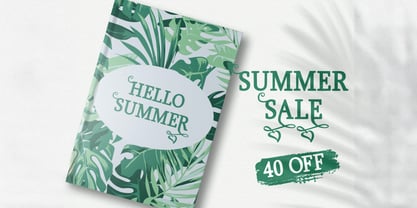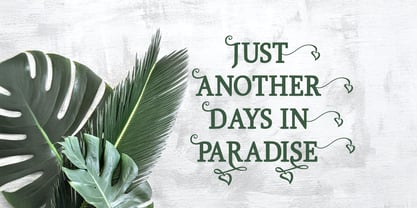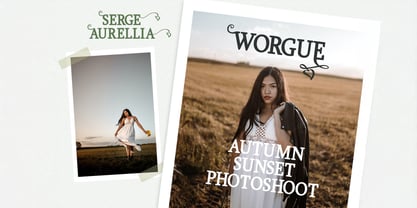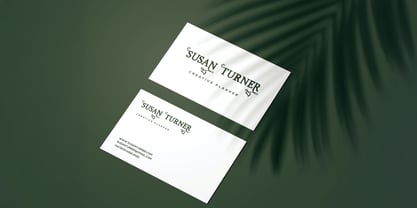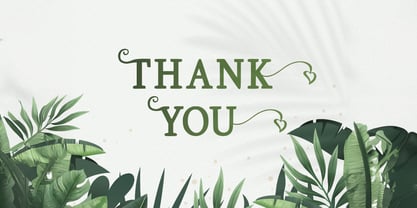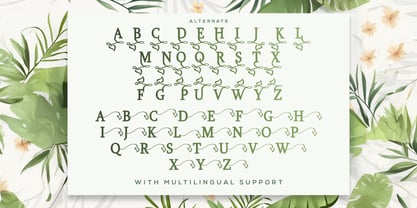
The Girdens Font Family was designed by Virgiawan Listanto and published by Stringlabs Creative Studio. Girdens contains 1 styles.
Girdens is a stunning decorative serif font that combines timeless elegance with a touch of flair. Girdens strikes the perfect balance between classic serif style and modern design, giving your projects a bold yet refined look that stands out.